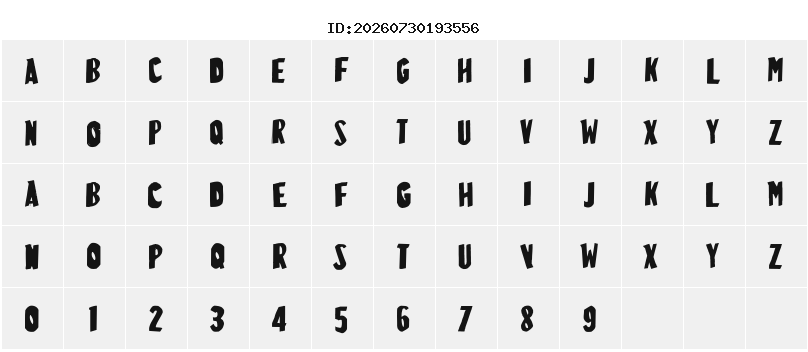
• Font Name: LuchitaPayol-LaRuda
• Copyright: Dise朼da en Hula+Hula por Quique Ollervides a finales del a杘 2000 y principios del 2001. Basada en los tipos m梫iles en linoleo de la Imprenta Payol.
LuchitaPayol-LaRuda.ttf is a modern, elegant sans-serif font designed for ultimate readability and visual harmony. Perfect for branding, headlines, web design, and print materials.